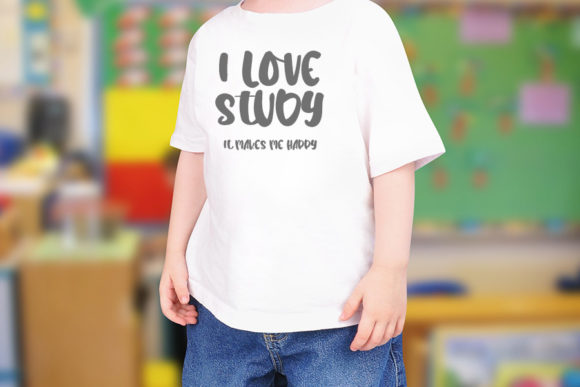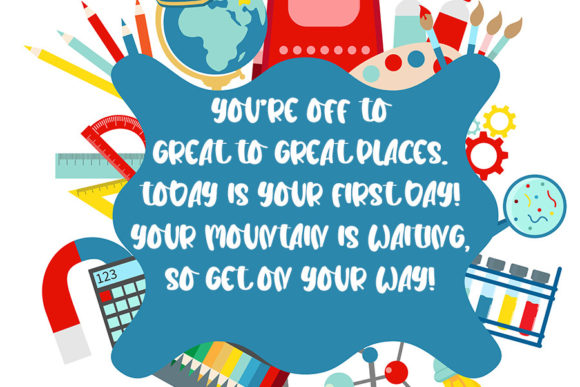
School Lover Font
db-ku.com - Script & Handwritten -- School Lover is a chic and quirky handwritten font carefully created with a touch of creativity. Whether you’re looking for fonts for Instagram or DIY projects, this font will turn any creative idea into a true piece of art!